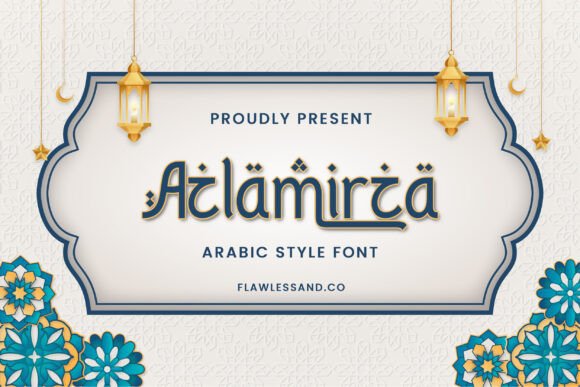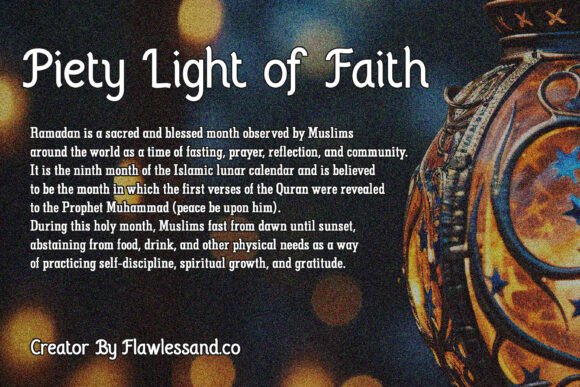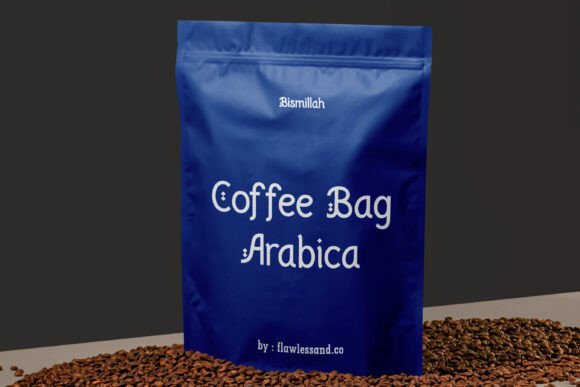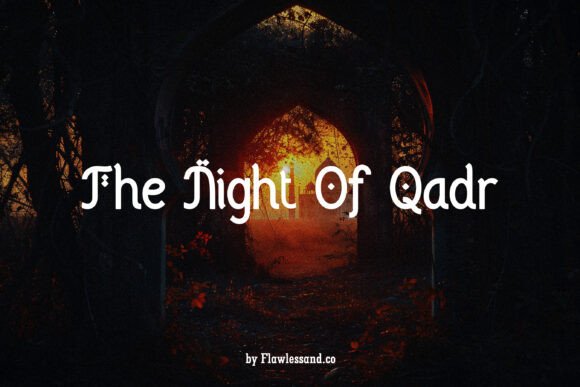
Azlamirza Font: Modern Arabic Calligraphy for Elegant Branding
About the Azlamirza Font
Make a bold statement with Azlamirza Font, a powerful and memorable font. Azlamirza is an Arabic-style font that blends traditional Middle Eastern aesthetics with a modern touch. Its elegant curves and cultural essence make it suitable for Ramadan designs, Islamic event posters, restaurant branding, packaging, invitations, and social media content. Perfect for adding an authentic Arabic feel to your creative projects.
Azlamirza’s elegant yet modern feel makes it ideal for headlines, logos, and short-form text in branding projects for high-end products or services, particularly those with a cultural connection to the Middle East. It also excels in packaging design for luxury goods and in creating impactful invitations or event posters. However, its decorative nature makes it less suitable for body text or user interfaces where readability is paramount.
For optimal visual harmony, pair Azlamirza with a clean sans-serif like Open Sans for body copy, creating a sophisticated contrast. Alternatively, a classic serif font such as Garamond could lend a timeless, luxurious feel. Avoid pairing it with other highly decorative fonts to prevent visual clutter.
The overall personality of Azlamirza is sophisticated and refined, conveying a sense of quality and tradition with a contemporary twist. This makes it perfect for brands seeking to project an image of elegance, heritage, and subtle modernity.